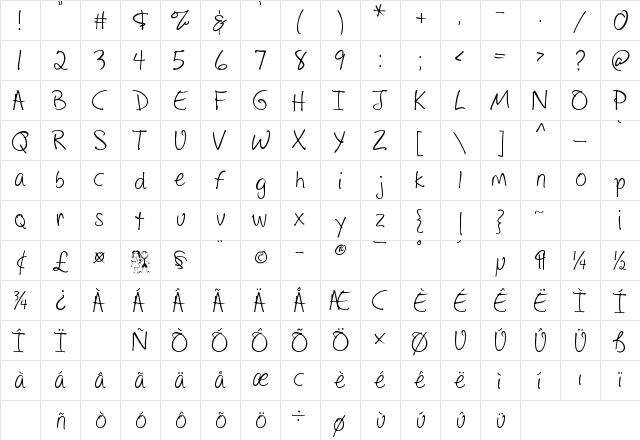
Drawing with markers Regular
Design Context for Drawing with markers Typeface
Drawing with markers is a composed and adaptable typeface that performs quietly and consistently across a wide range of design contexts.